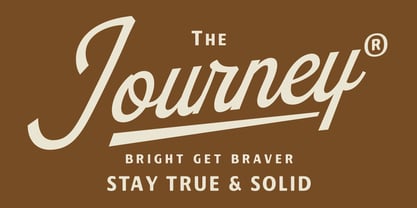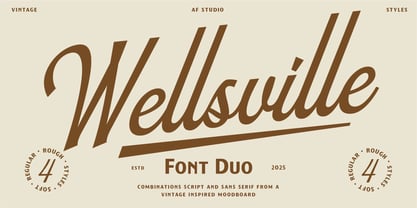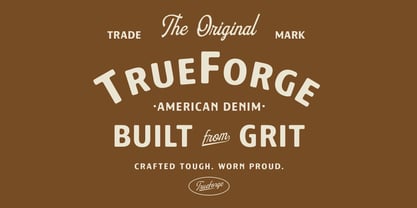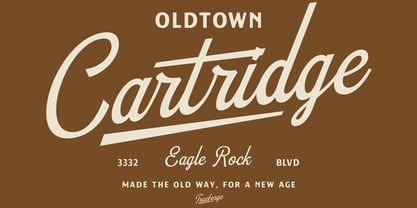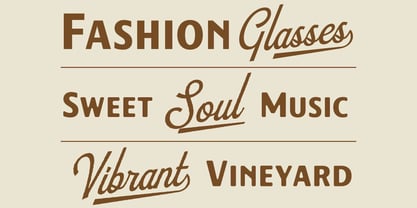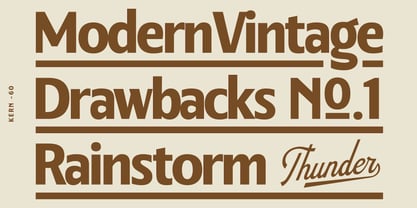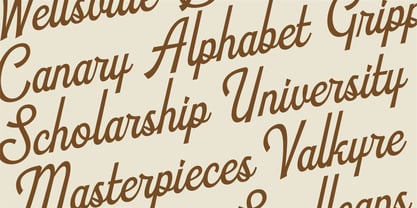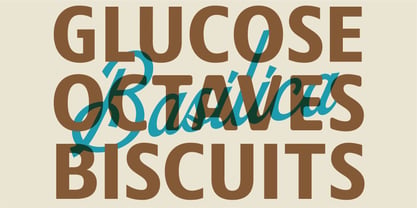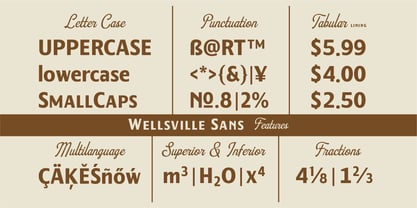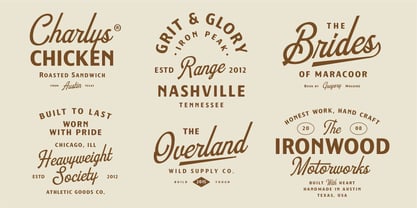
Wellsville
by Adam Fathony
The Wellsville Font Family was designed by Adam Fathoni Haris and published by Adam Fathony. Wellsville contains 4 styles and family package options. More about this family
Wellsville is a vintage-inspired font duo that seamlessly blends a smooth script with a bold sans serif, making it perfect for timeless design projects. This font is ideal for crafting distinctive logos, elegant packaging, charming café branding, or nostalgic posters. Wellsville embodies the warmth of mid-century Americana while providing a contemporary polish. With its versatile styles, soft curves, and authentic texture, this font family guarantees that every word feels handcrafted and rich in character, elevating your branding and editorial designs.
Designers: Adam Fathoni Haris
Foundry: Adam Fathony